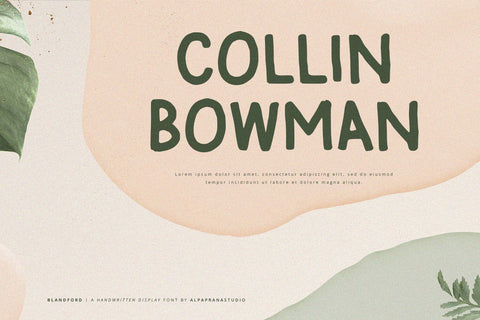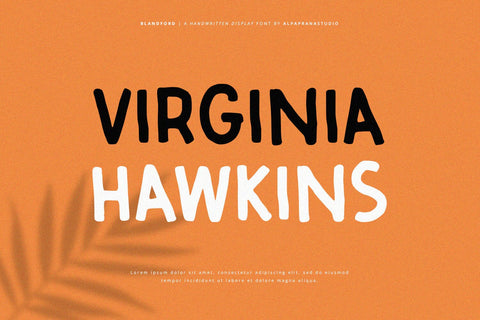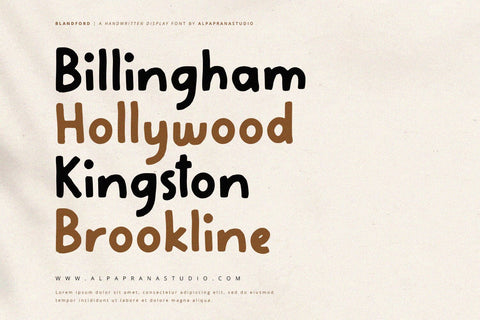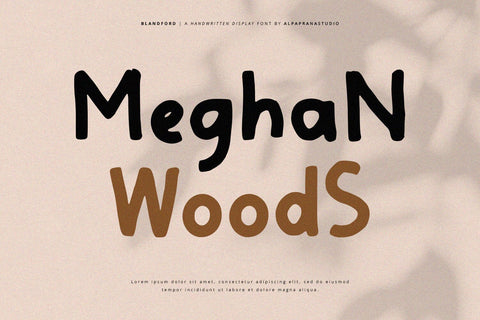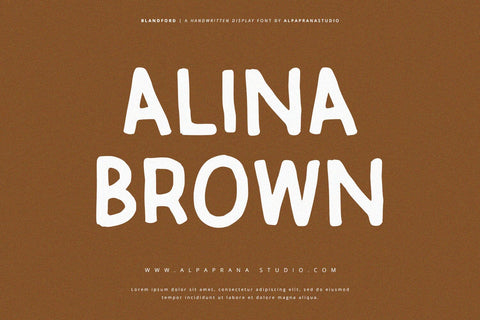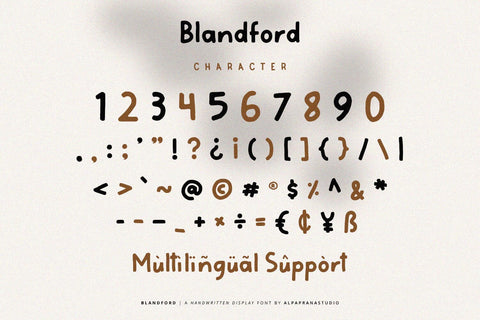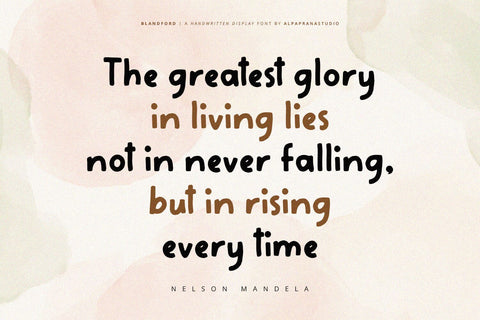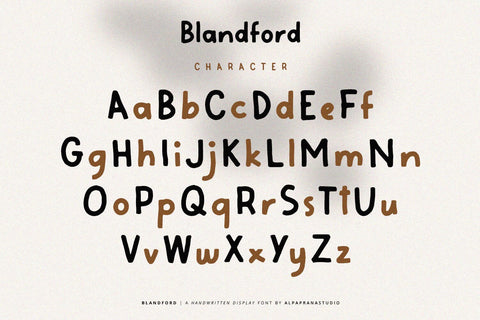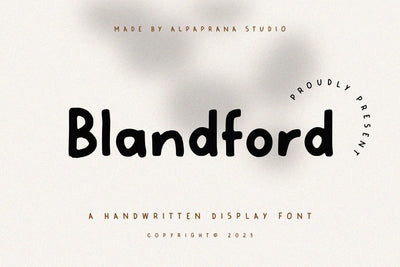
Blandford - Handwritten Font
Blandford is a handwritten display font with natural and modern feels. It will be perfectly used for Branding, Logo Design, Lettering, Logotype, Clothing, Poster, magazine, packaging, posters, shopping bags, t-shirts, book covers, photography, special events and other design project.